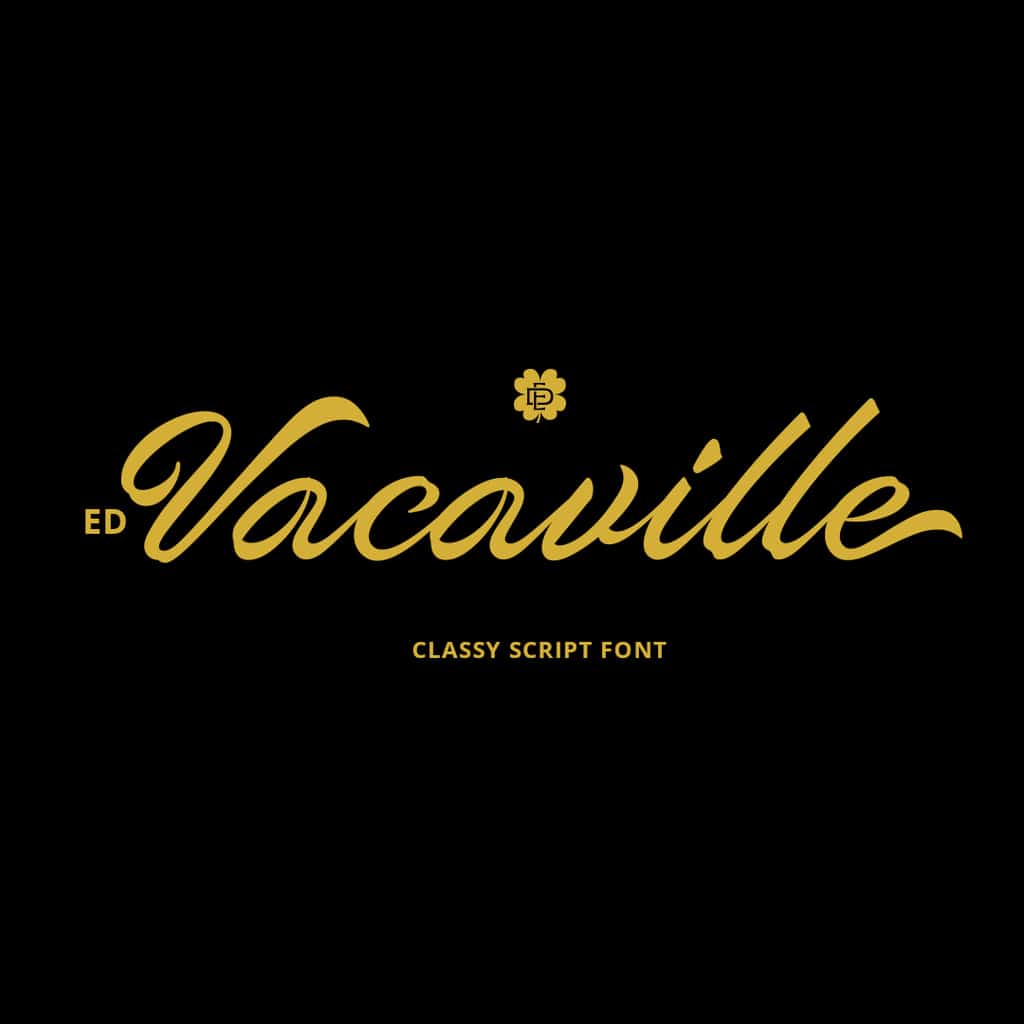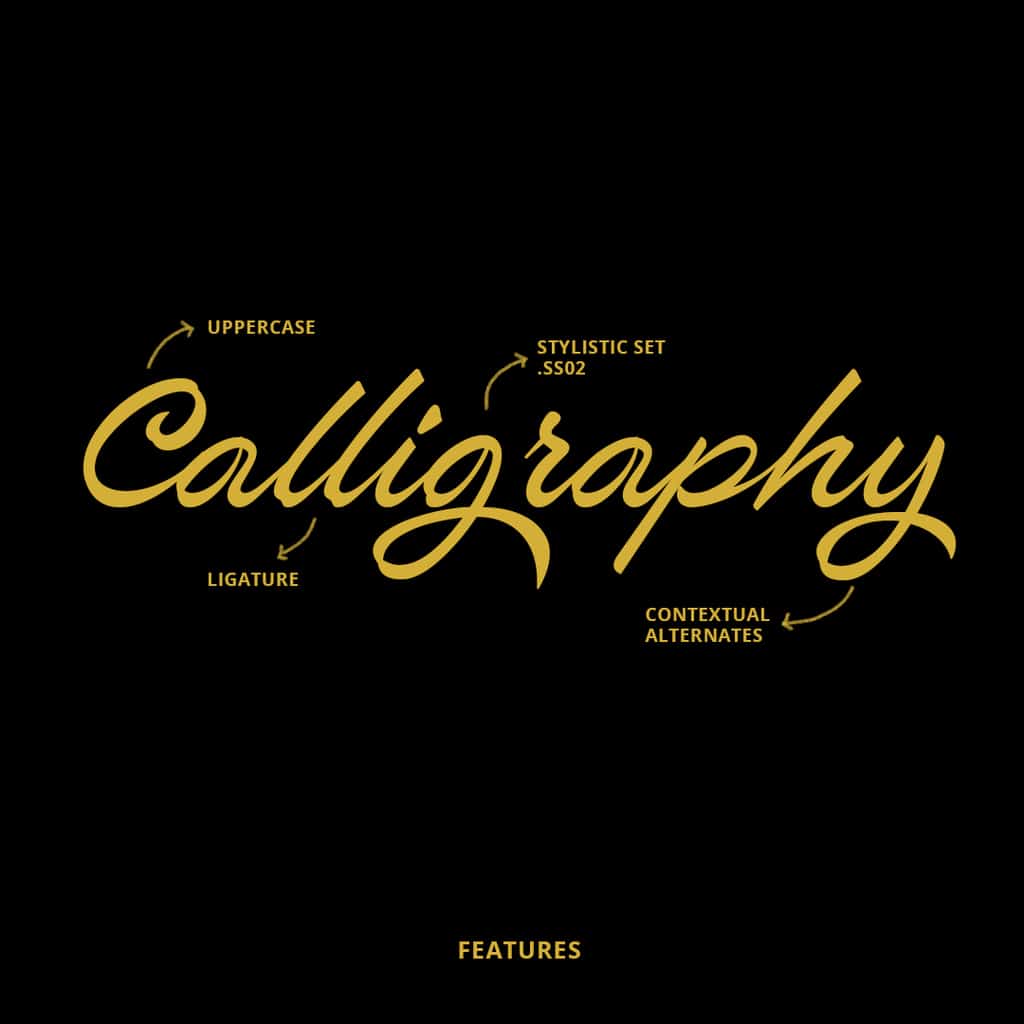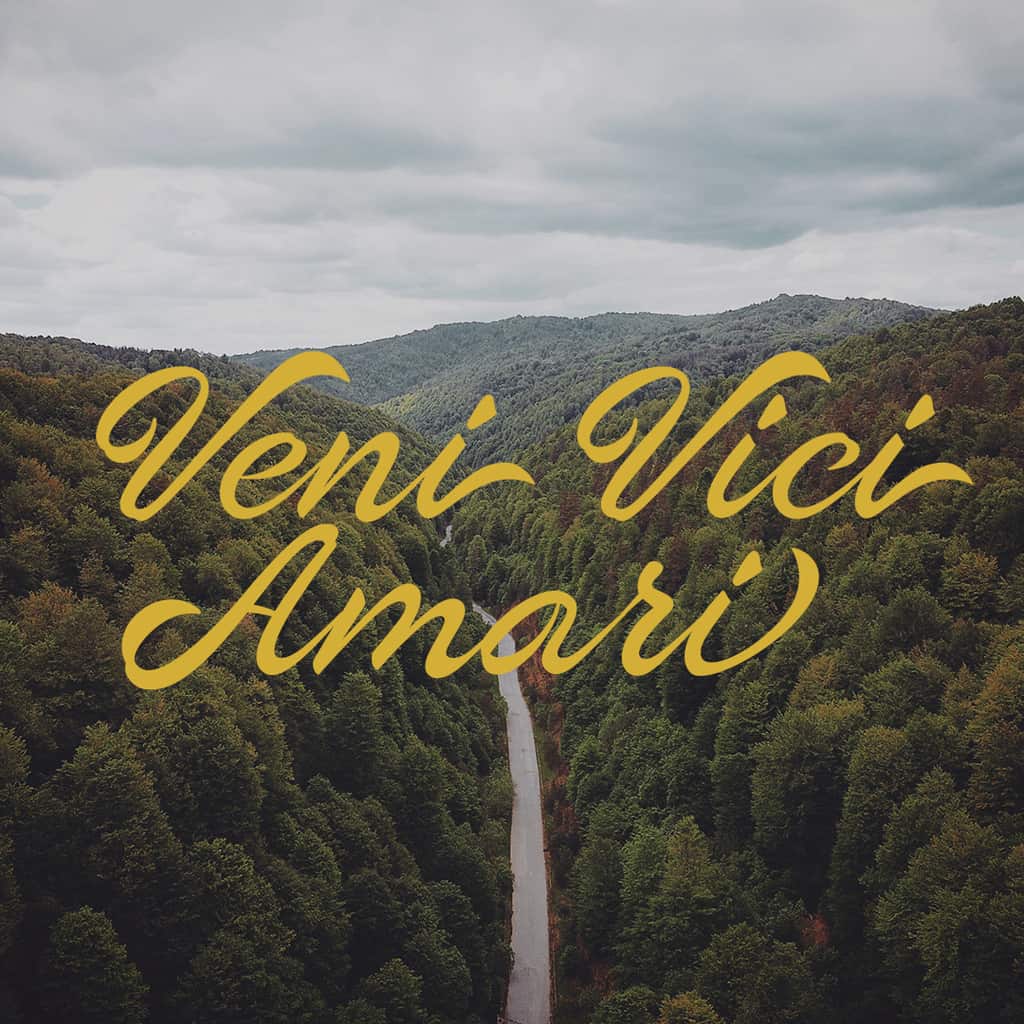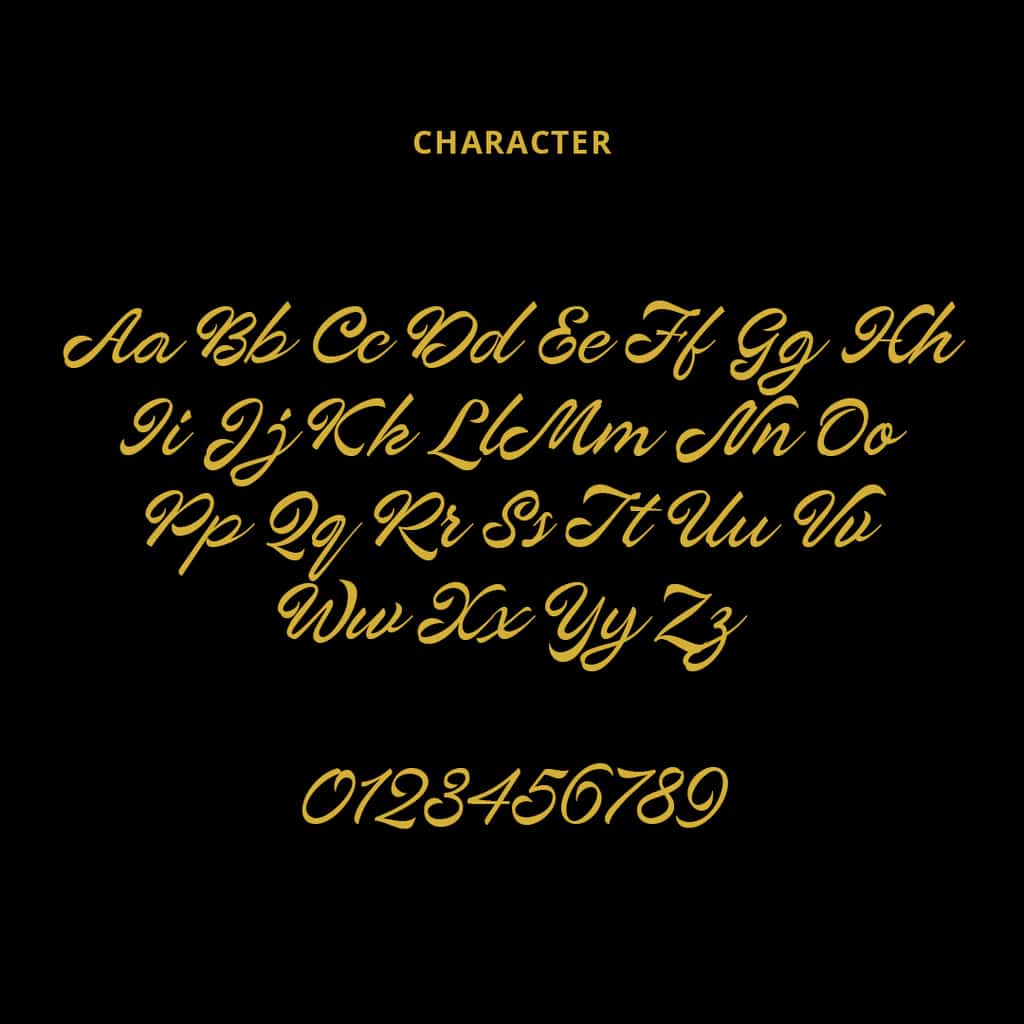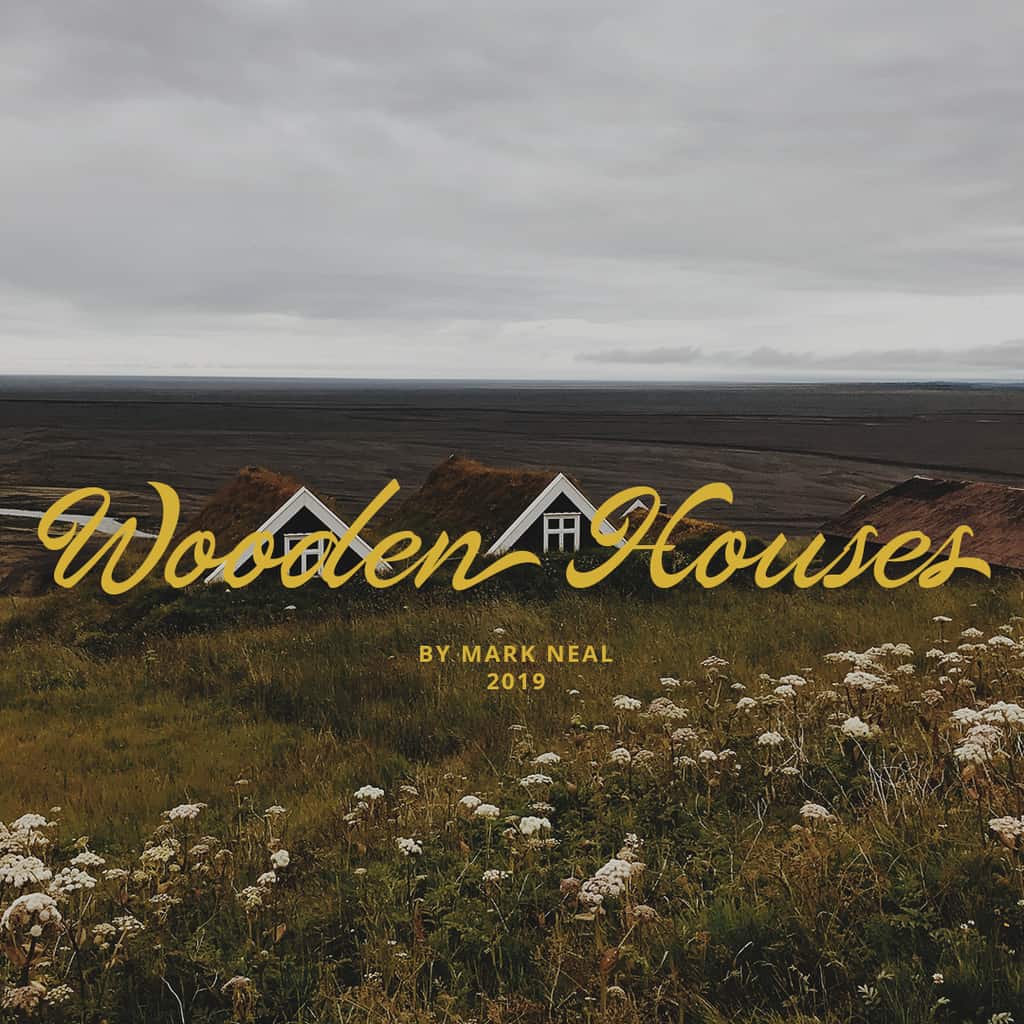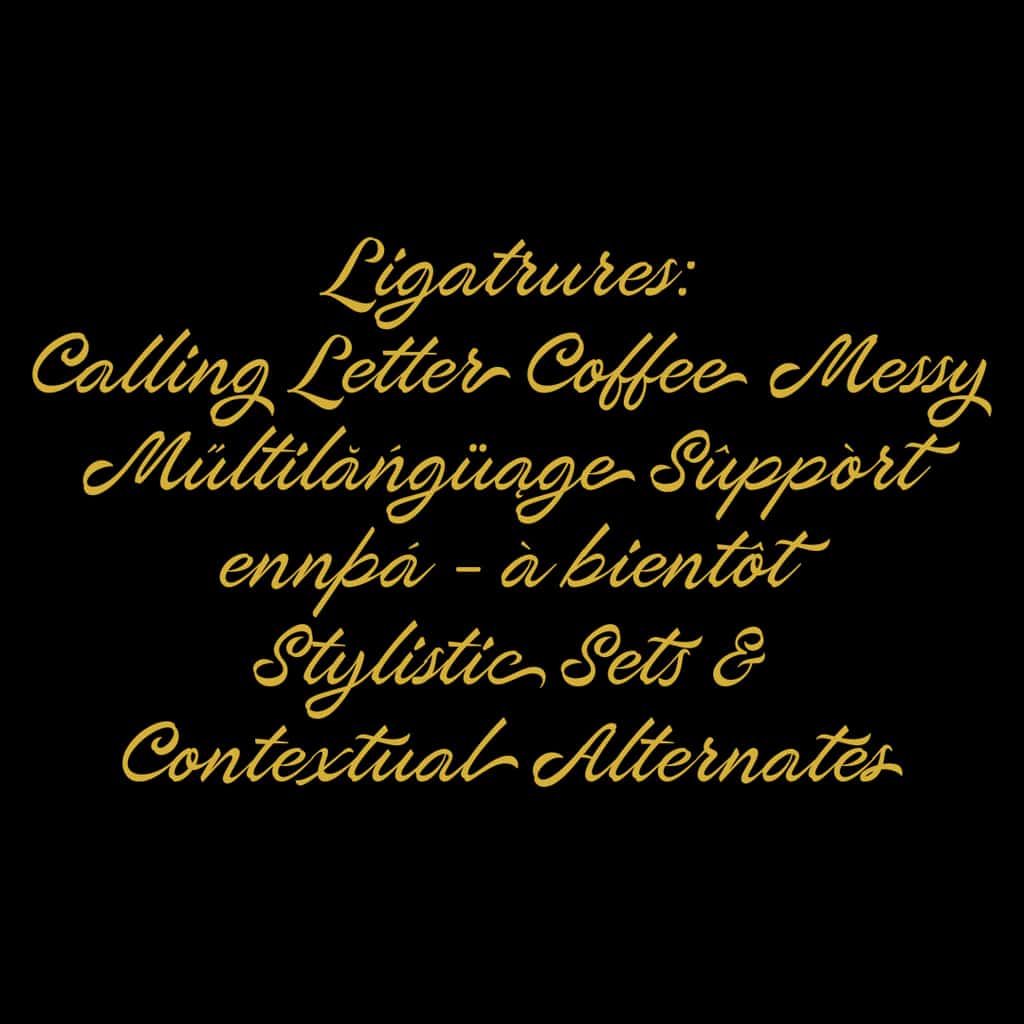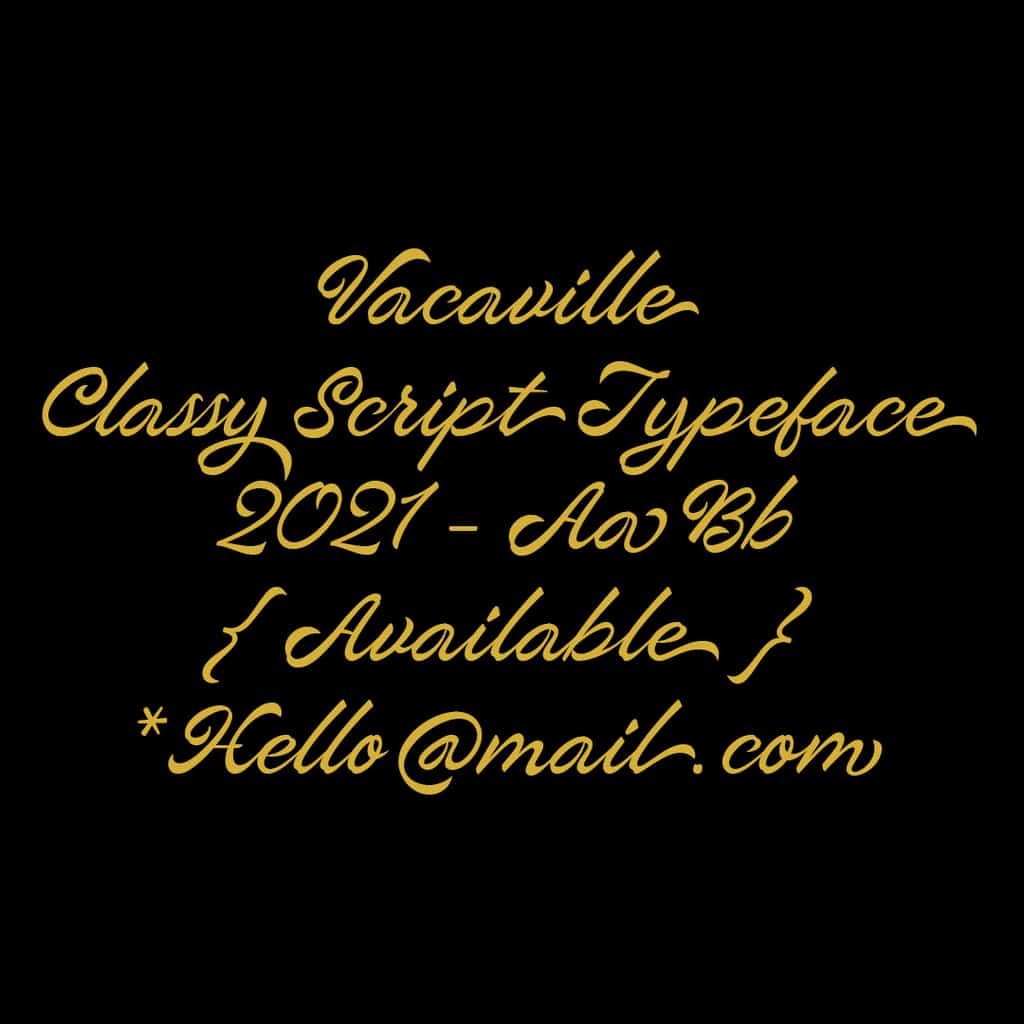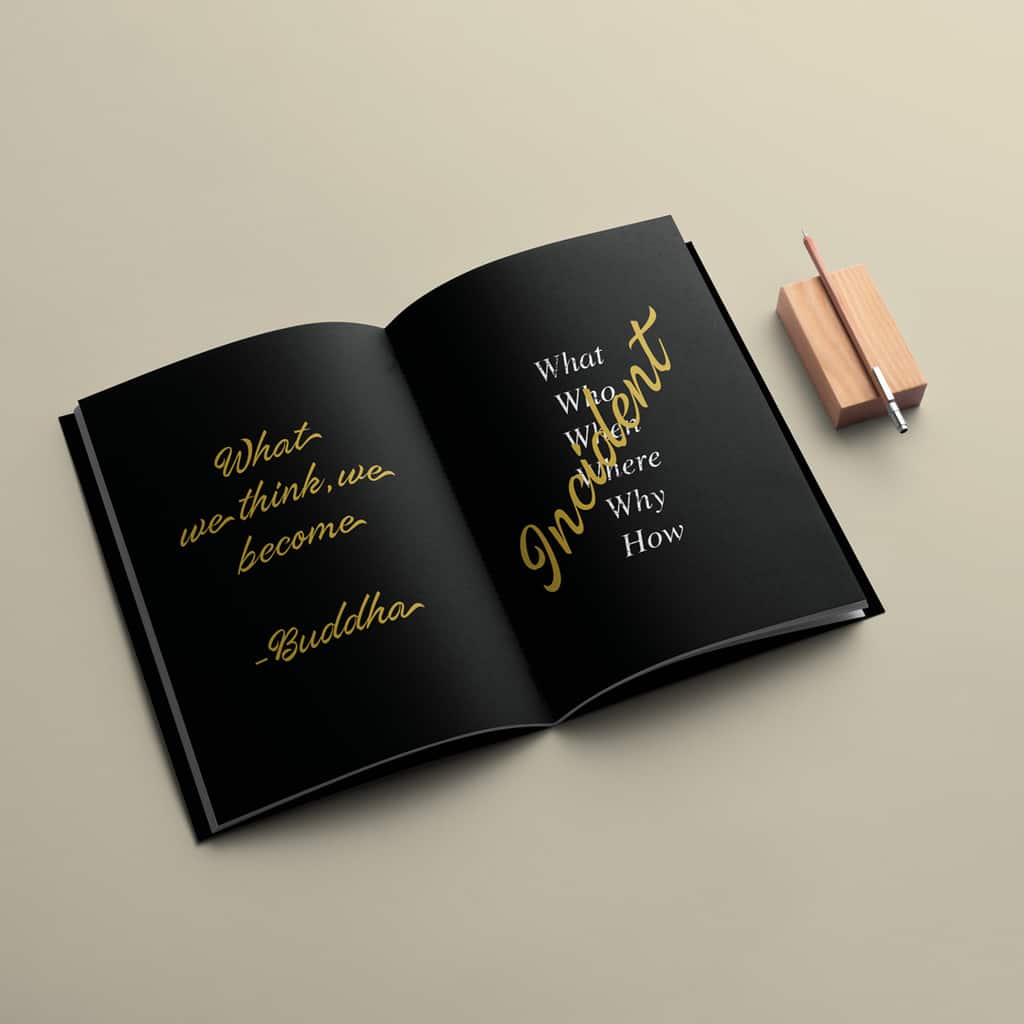
ED Vacaville
ED Vacaville is a script font inspired by brush handwriting, exuding classic style and versatility. Dressed with a natural flow and elegance, it's typeface design complements other fonts and excels in display settings such as branding, logo design, wedding invitations, decorations, and more.
Featuring ligatures, contextual alternates, and stylistic sets (.ss01, .ss02), ED Vacaville offers creative flexibility and refinement.